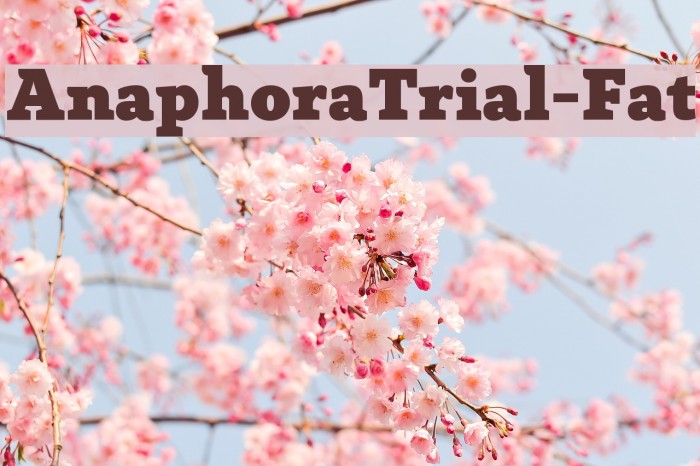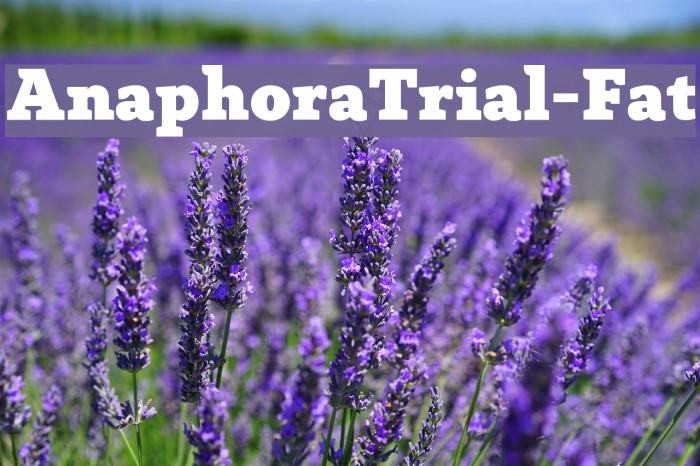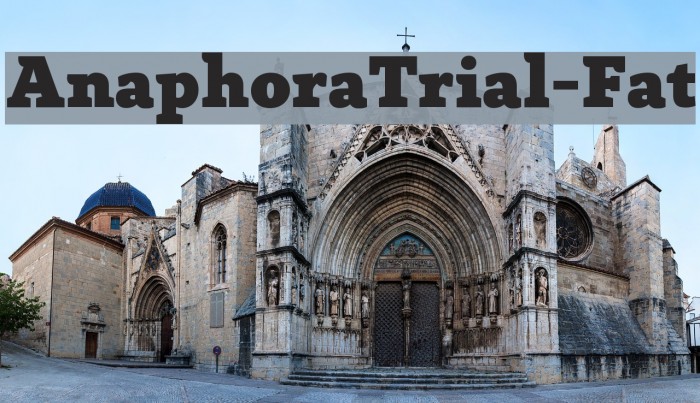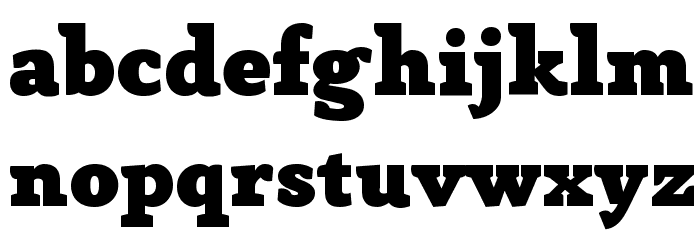
AnaphoraTrial-Fat Font
AnaphoraTrial-Fat Description
This font exhibits a bold and robust style with thick, heavy strokes that convey a strong presence. The characters are well-defined with a consistent weight throughout, making it ideal for impactful headlines and attention-grabbing designs. The uppercase and lowercase letters maintain a uniformity that ensures readability, while the numerals and special characters are crafted to match the overall bold aesthetic. The font's design is straightforward yet powerful, making it suitable for a variety of creative projects.
A bold, robust font with thick strokes, perfect for impactful headlines from Uncategorized fonts.
- Proposed Projects: Ideal for branding, posters, headlines, and any design requiring a strong visual impact.